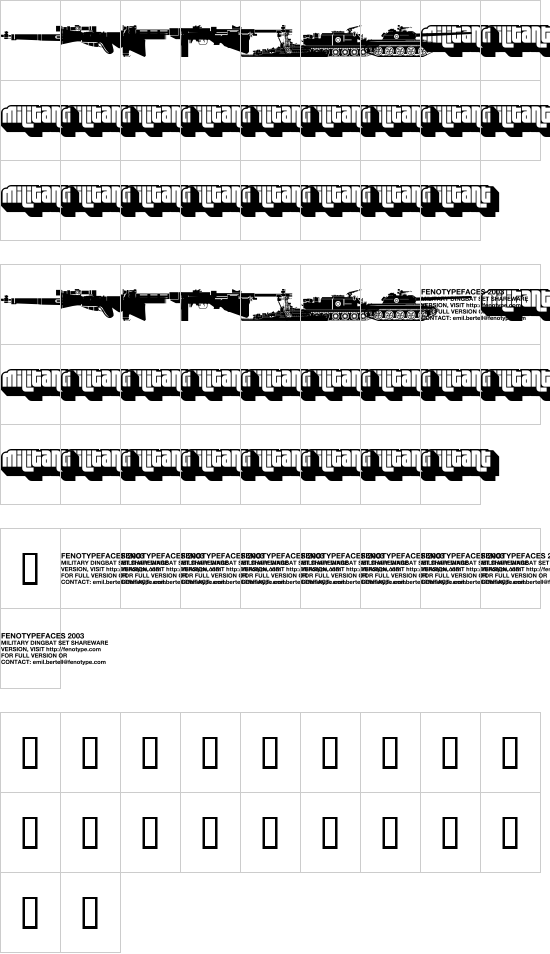
abc is a playful dingbat font built from decorative symbols and picture glyphs rather than standard text, offering a small collection of ornamental marks across the keyboard. Each key reveals a different picture, making it more of a graphics kit than a reading face.
Use it for craft projects, scrapbook accents, children's materials, and ornamental graphic elements. abc is free to download as a TrueType file, and you can preview it with your own text to see which symbols appear on each key before dropping them into a layout or decorative border.